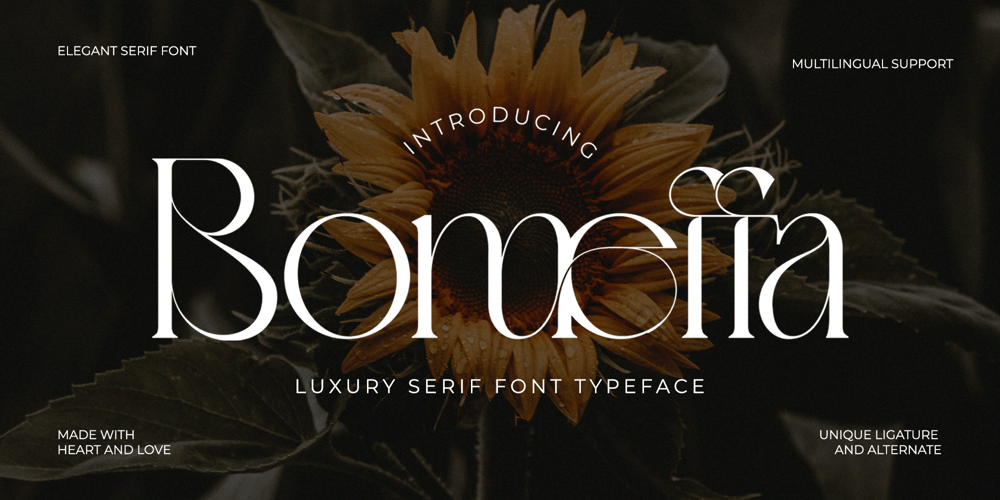
Bomeffa
Bomeffa font
Bomeffa Font Family was designed by Virgiawan Listanto and published by Inviline. Bomeffa contains 1 styles and family package options. Introducing a refined luxury serif font, meticulously crafted for sophisticated projects. Its elegant design seamlessly blends classic charm with modern versatility. Perfect for branding, logos, invitations, and more. Elevate your designs today!